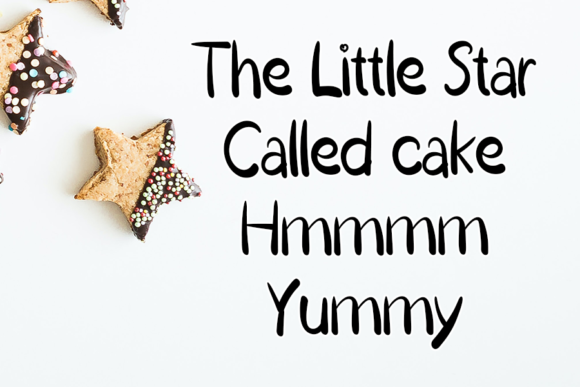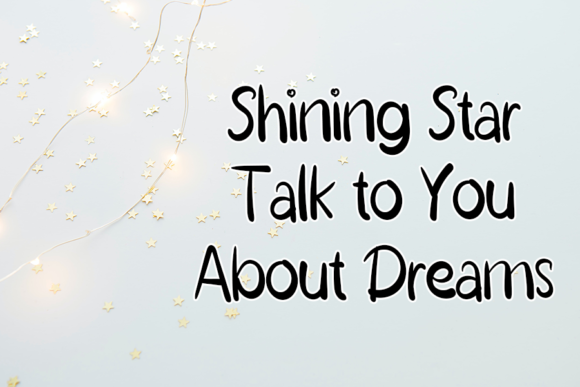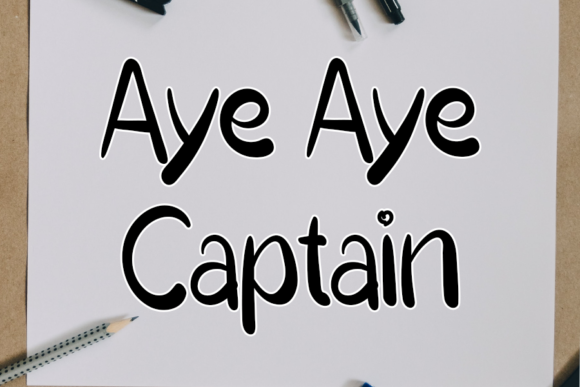
The Perfect Wave of Creativity: Introducing Beach Bows Font
There’s nothing quite like the feeling of staring at a blank page, surrounded by a sea of ideas, and waiting for the perfect wave of inspiration to hit. It’s in these moments of creative limbo that we turn to our trusty fonts for guidance. And what better way to capture the essence of summer than with a font that’s as playful as a beach breeze?
Enter Beach Bows Font, a charming handwritten font that’s sure to add a touch of whimsy to your next design project. With its bouncy, dancing characters, Beach Bows Font is the perfect companion for any creative endeavor. Whether you’re crafting a beach-themed brochure or designing a summer-themed social media campaign, this font is sure to bring a smile to your face and a touch of magic to your work.
- Unique Characteristics: This font features a playful, hand-drawn design with elegant bow elements, adding a touch of whimsy and sophistication to any project.
- Script and Regular Styles: Beach Bows Font includes both script and regular styles, allowing designers to create a range of effects and moods.
As a designer, I was excited to dive into the Beach Bows Font. At first glance, it’s a cute and playful script font that’s perfect for summer-inspired projects. ✨
- Beachy vibe: The font captures the carefree and laid-back atmosphere of the beach, making it ideal for projects that require a fun and relaxed tone.
- Easy to read: Despite its script nature, the font is surprisingly easy to read, even at smaller font sizes.
However, I did encounter a few limitations that held me back from giving it a higher rating. ⚠️
- Limited versatility: While the font is perfect for summer-themed projects, it might not be the best choice for more formal or professional designs.
- No bold or italic weights: The font only comes in regular weight, which can make it difficult to create emphasis or hierarchy in designs.
Overall, I think the Beach Bows Font is a great choice for designers looking for a fun and playful script font for summer-inspired projects. While it has some limitations, it’s a solid addition to any designer’s font collection.
Use the Beach Bows Font for beach-themed designs, such as invitations, posters, and social media graphics.
Combine the font with other beach-inspired elements, such as seashells, palm trees, and waves.